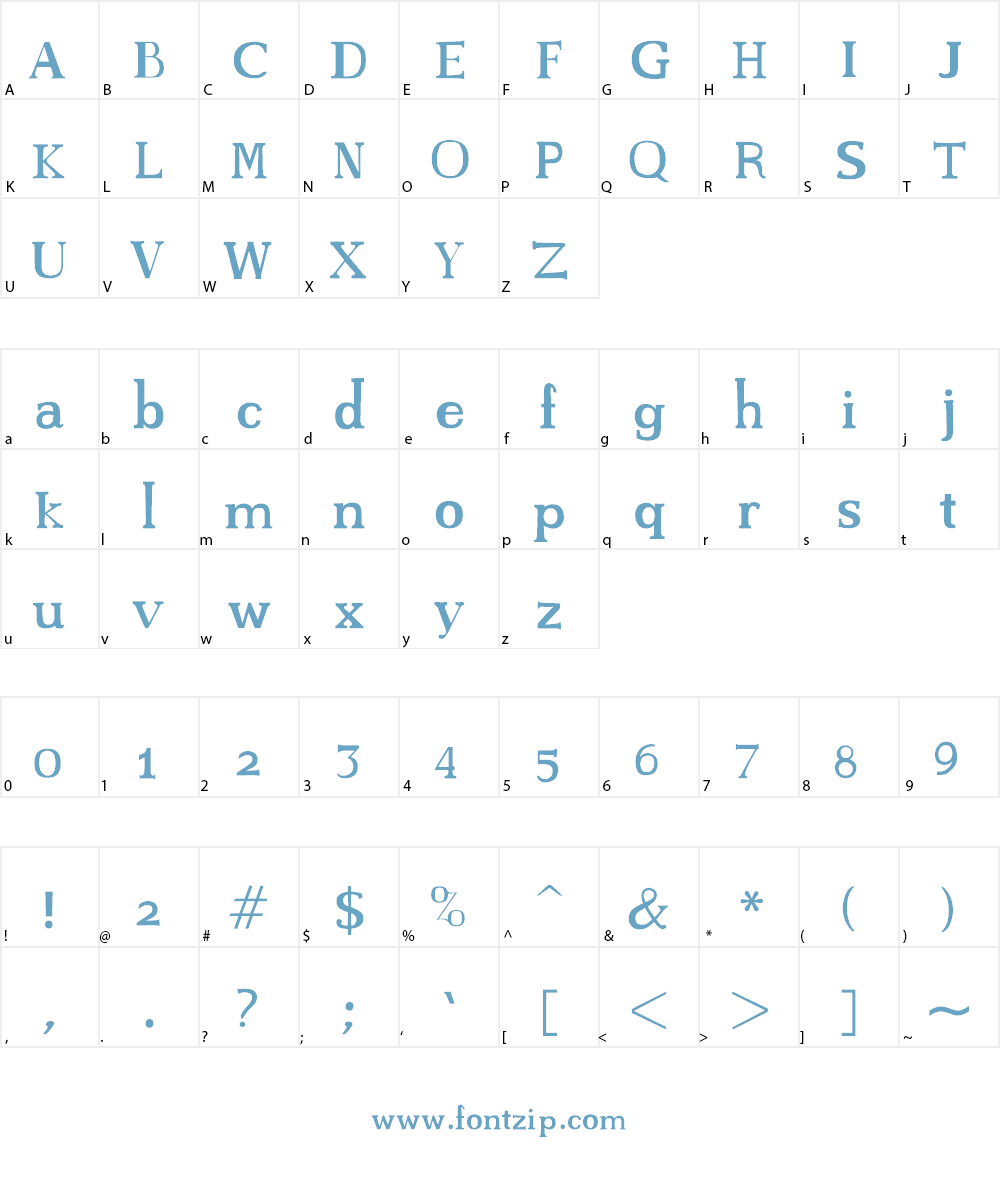
The font Mariana Slabserif is a digital transference of a abandoned tipography used in the ' 60s decade in some books of Economy, in Buenos Aires, Argentina.